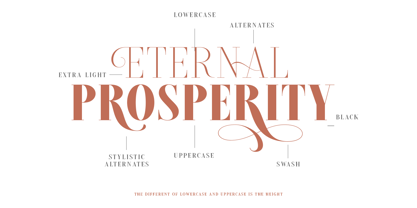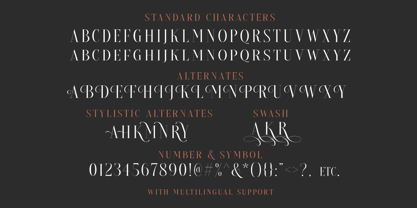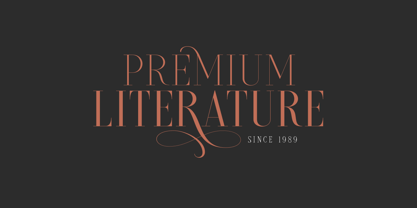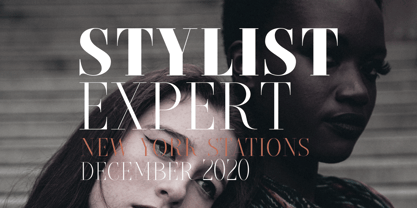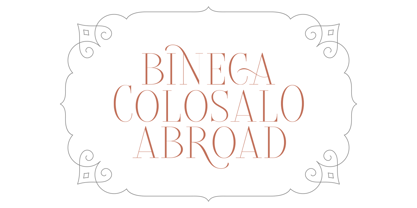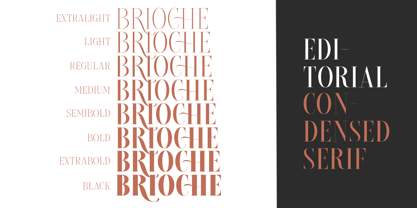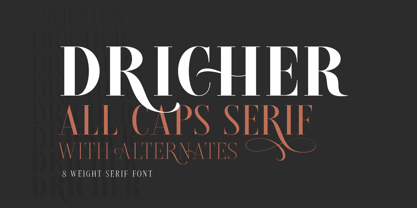
Dricher
by Sarid Ezra
The Dricher Font Family was designed by Sarid Ezra and published by Sarid Ezra. Dricher contains 8 styles and family package options. More about this family
Dricher is a classic and modern serif with 8 weight style and a bunch of alternates for each characters that will make your presentation or logo even more stunning and stand out! With four style that you can use for several purpose! This fonts support Multi Language and already PUA Encoded!